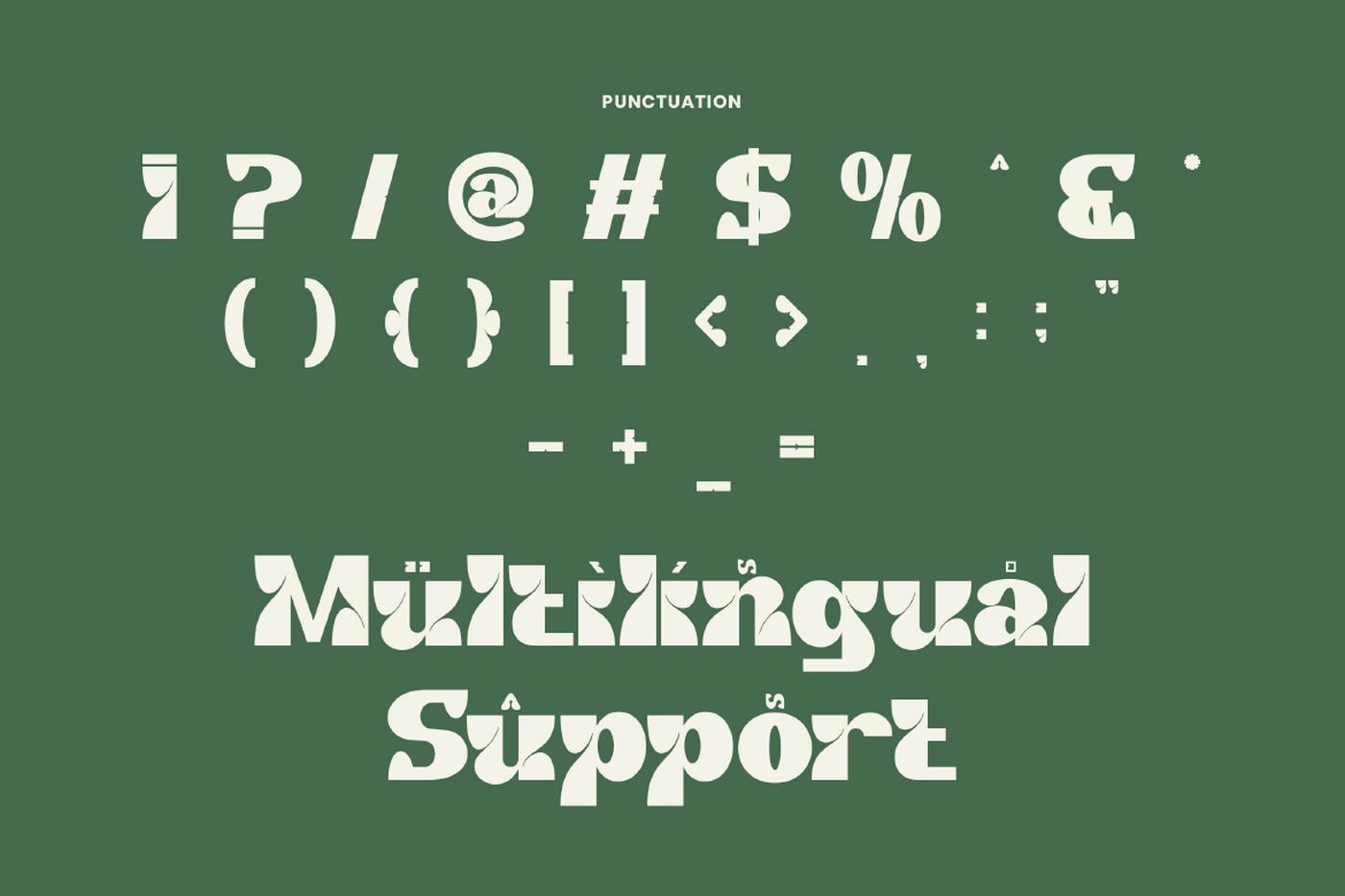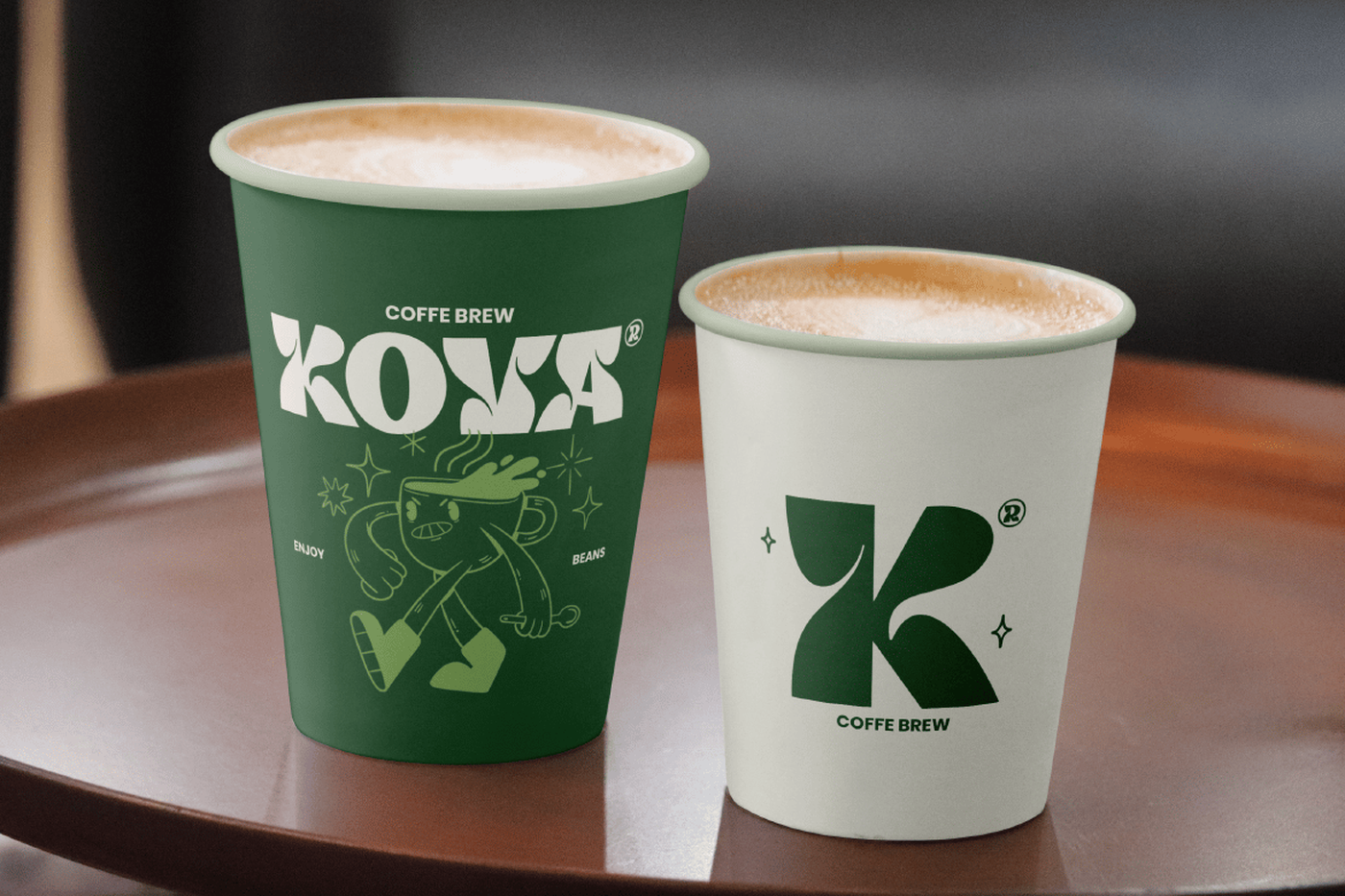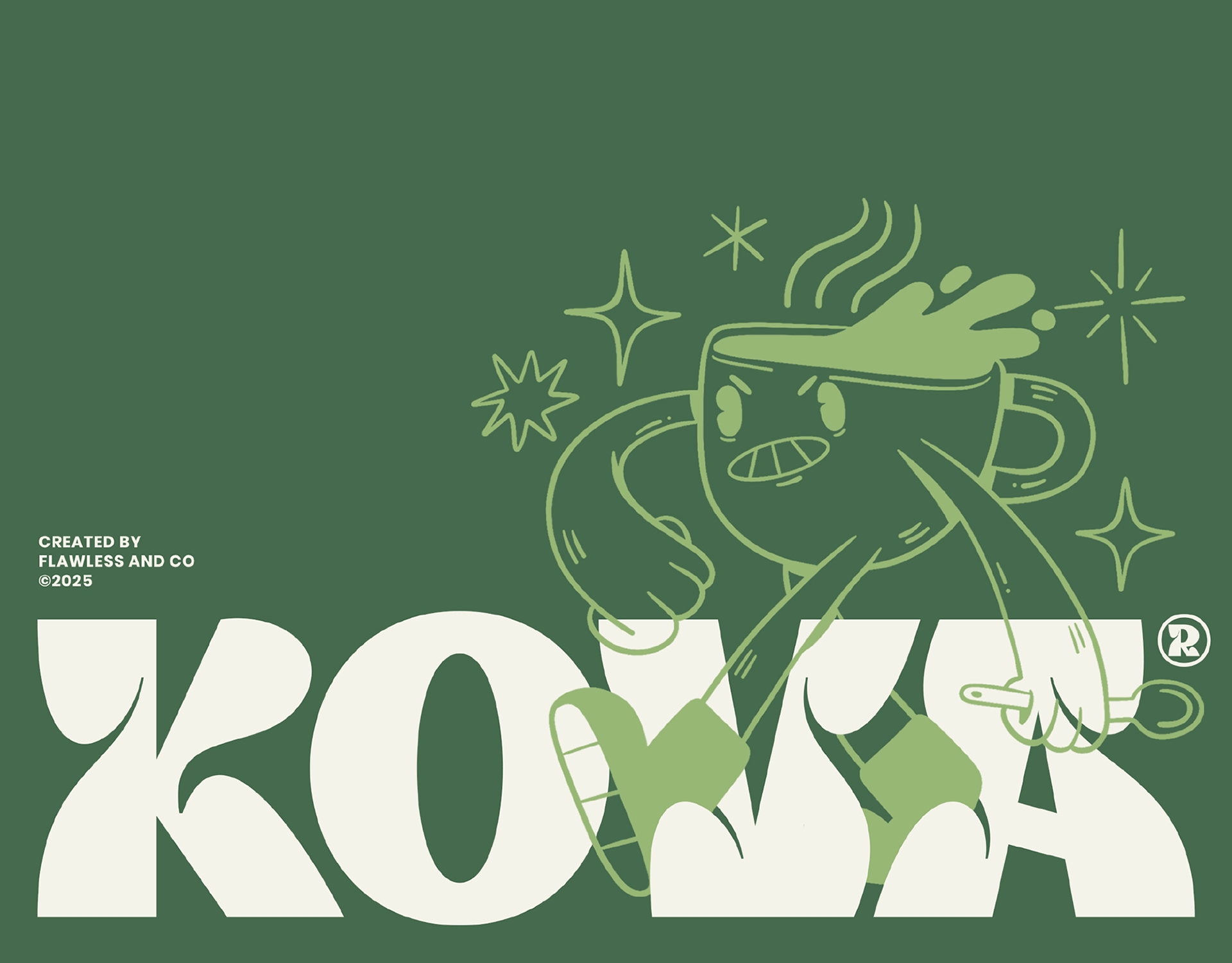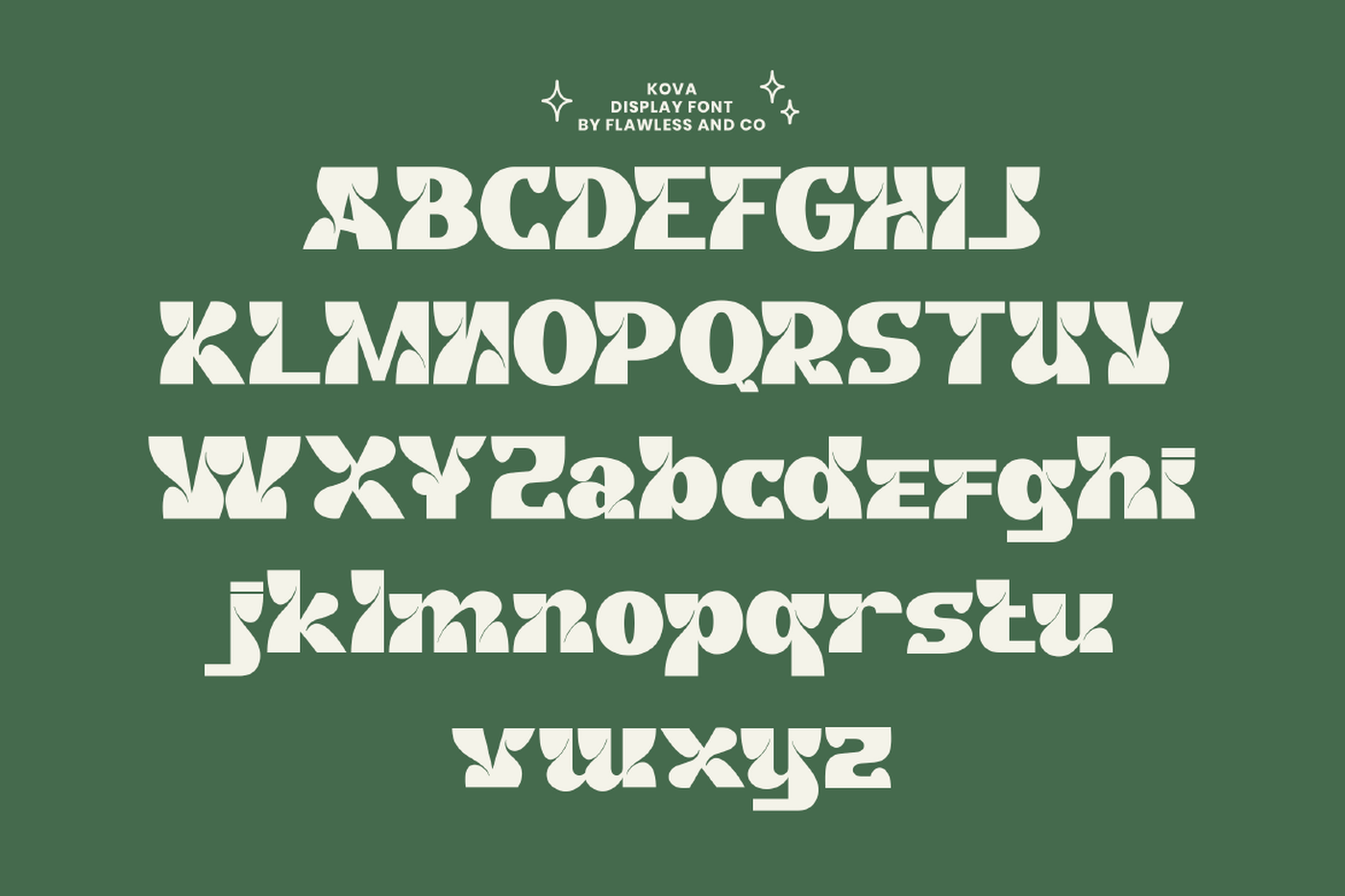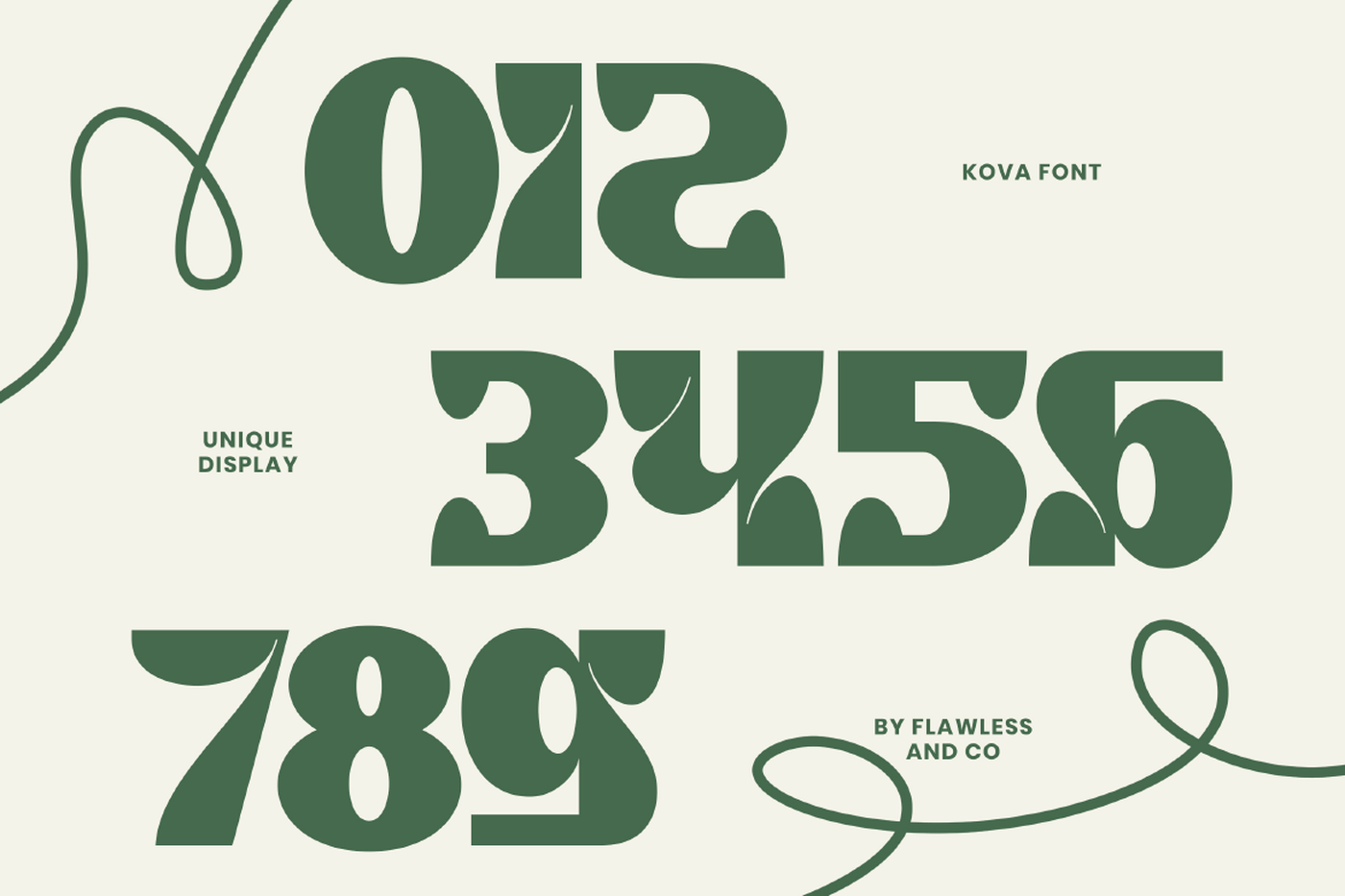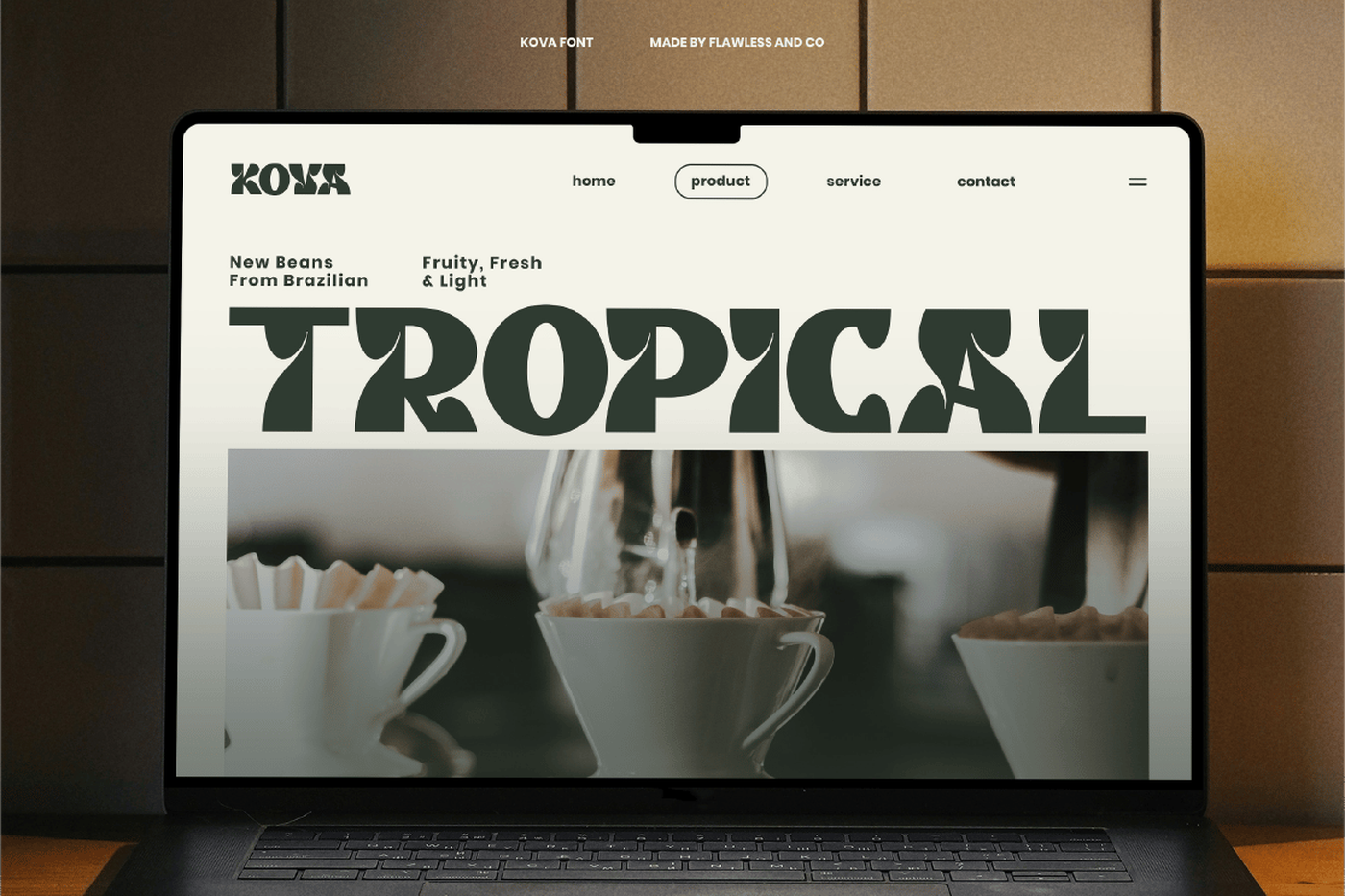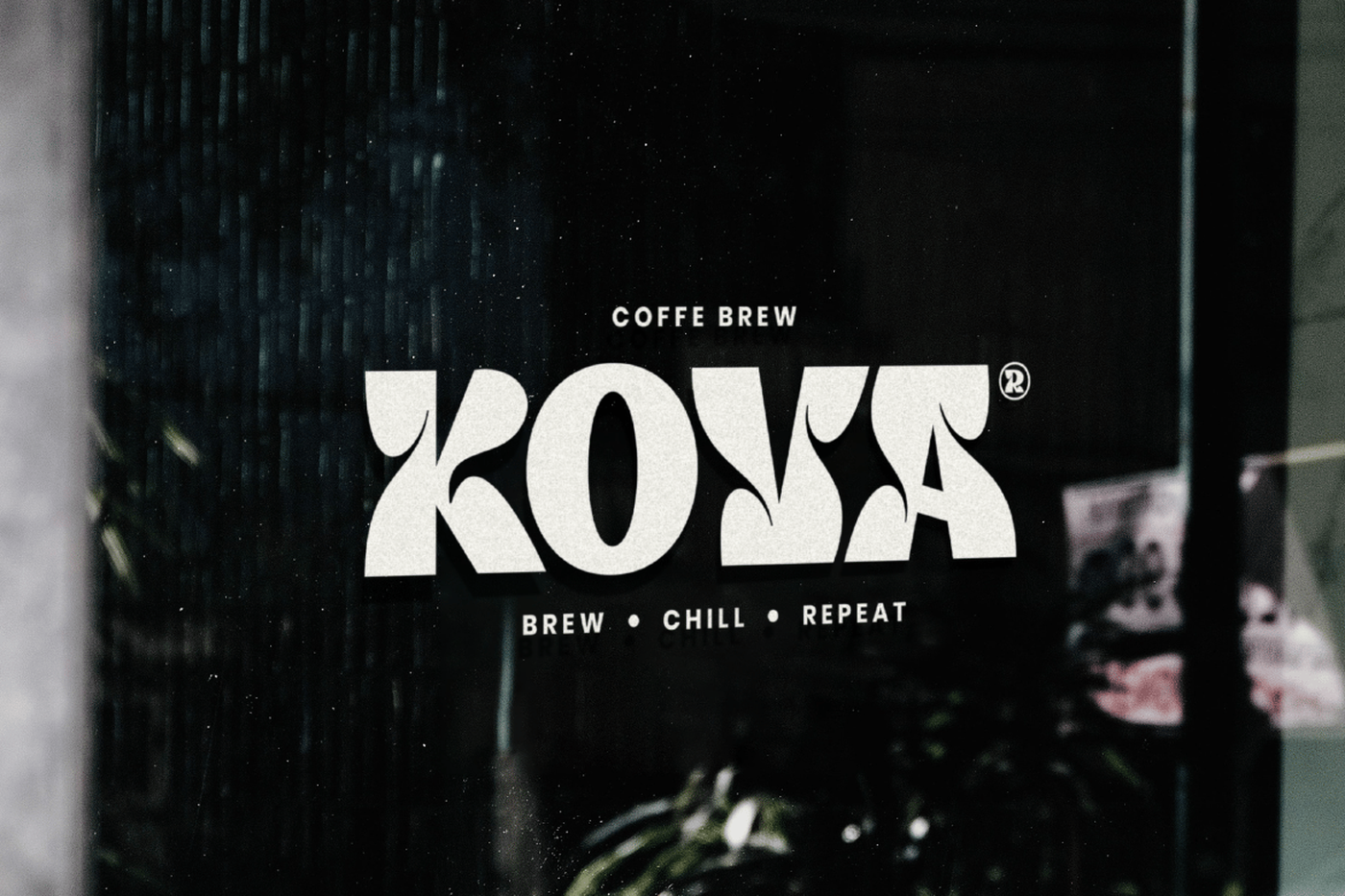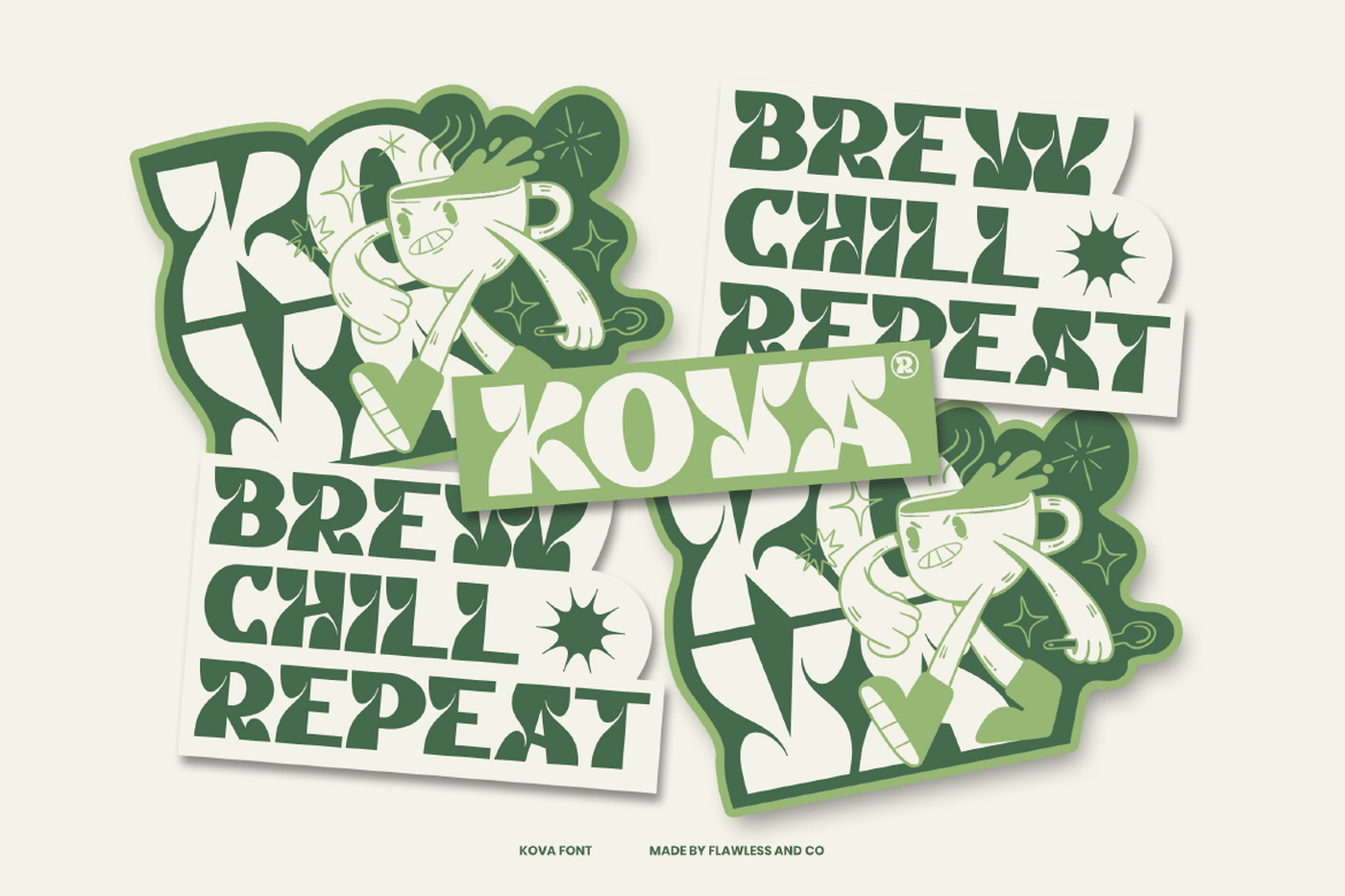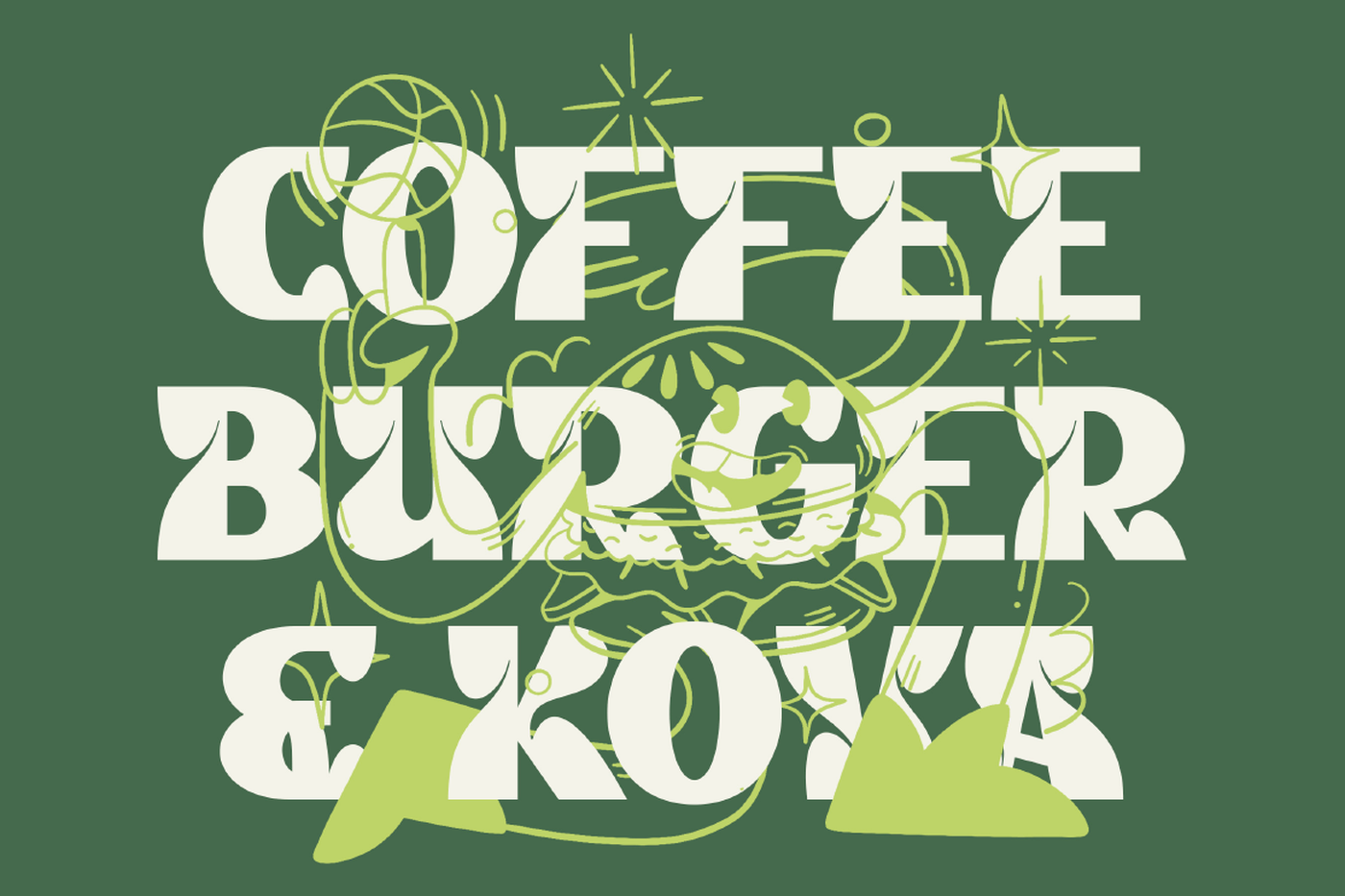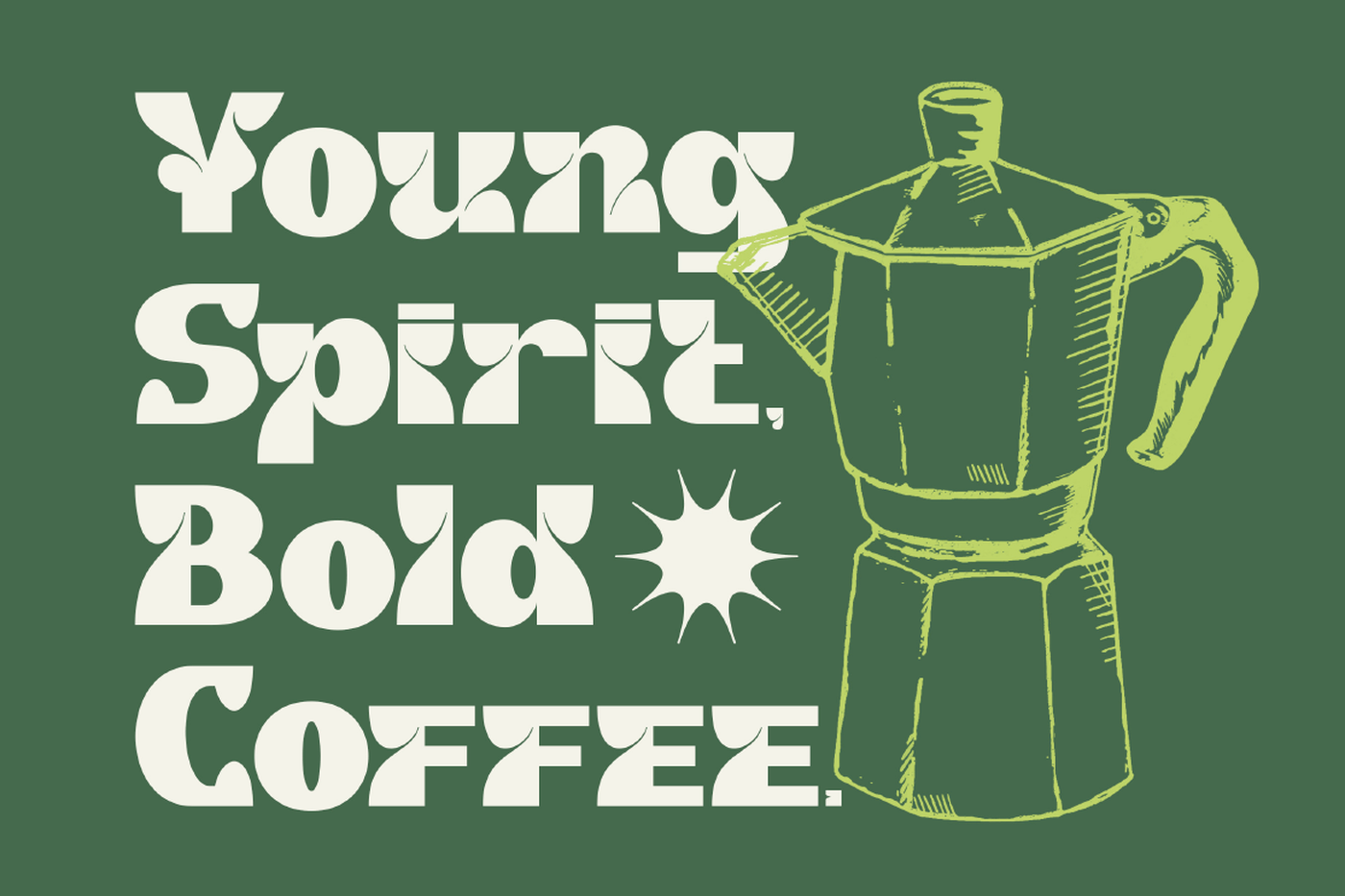
Kova - Playful Display Font
Kova is a bold and quirky display sans font that brings a splash of energy to every design. With its chunky shapes, fun curves, and confident stance, Kova captures a sense of playfulness and creativity that stands out effortlessly. Perfect for projects that need a modern yet friendly touch, this typeface is designed to make your words jump off the page.
Designer: Flawless And Co